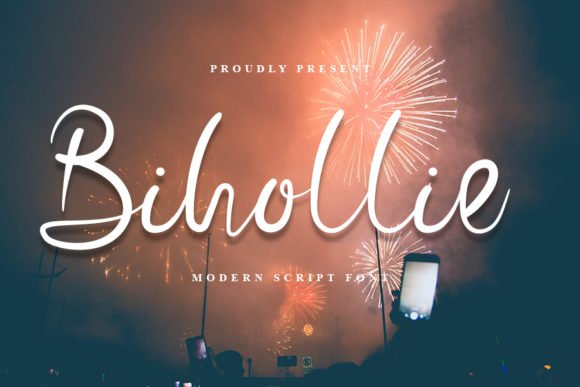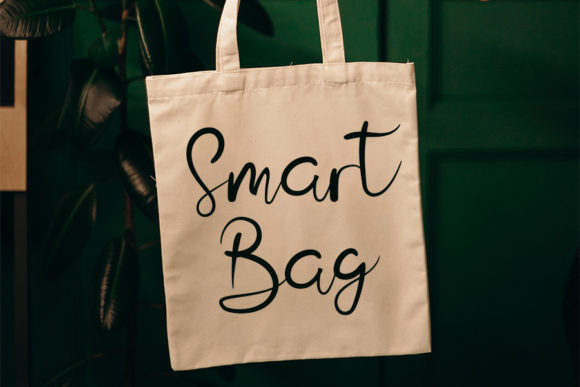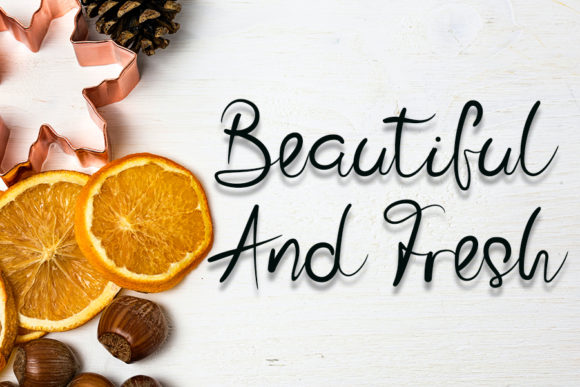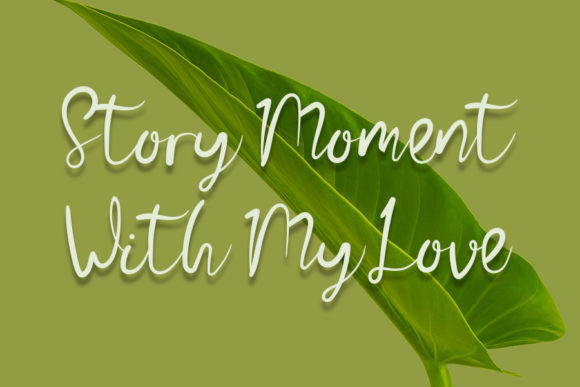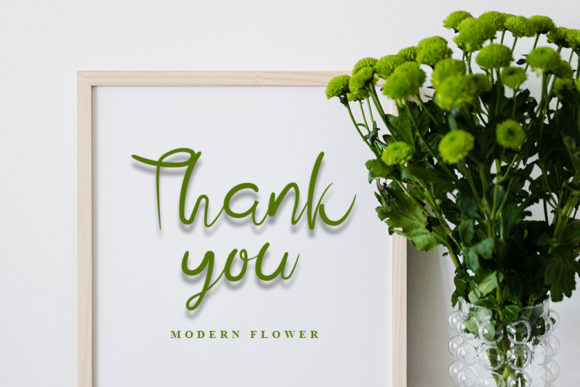
Discover the Magic of Bihollie Font: Elevate Your Holiday Projects
As a creative, there’s nothing quite like the feeling of finding the perfect font to bring your vision to life. You’re browsing through font libraries, scrolling through online marketplaces, and suddenly, a font catches your eye. Its elegant curves and flowing lines transport you to a world of holiday magic. This is exactly what happened to many designers when they stumbled upon the Bihollie Font.
Bihollie Font is a beautiful, rich, and elegant handwritten font that’s perfect for holiday-themed greeting cards, invitations, and any crafting project that requires a romantic touch. Its versatility and timeless charm make it a valuable addition to any designer’s toolkit.
Whether you’re a seasoned pro or a beginner, the Bihollie Font is sure to inspire your creativity and help you create stunning projects that will be treasured for years to come.
- Unique Character: Bihollie Font features a unique blend of modern and vintage elements, creating a distinctive aesthetic.
Bihollie Font Review
Overall, I think the Bihollie font has a lot going for it. ✨ It’s got a unique, handwritten feel that’s perfect for adding some personality to your designs. The font is highly legible, even at smaller sizes, and it’s got a nice flow to it that makes it a joy to read.
One of the things that I think really sets the Bihollie font apart is its versatility. ✨ It’s great for use in body text, but it’s also perfect for headings and titles. The font is highly customizable, so you can tweak it to fit your specific design needs.
- ⚠️ The font can feel a bit too playful at times, which may not be suitable for all types of designs.
- ⚠️ Some users may find the font to be a bit too ornate, which can make it difficult to read in certain situations.
Overall, I think the Bihollie font is a great addition to any designer’s toolkit. While it may have some limitations, its unique feel and high level of customization make it a valuable asset for any project.
Tips for Getting the Most Out of Bihollie Font
For optimal results, use the Bihollie font in conjunction with bold or italic text to create emphasis.
Experiment with different font sizes and colors to achieve a unique visual effect.
The Bihollie font is ideal for:
- Emphasis and highlights
Alternatives to Bihollie Font
Playfair Display is an elegant, high-end serif font ideal for luxury branding, high-end fashion, and sophisticated publications. It features a mix of classic and modern elements, making it a great choice for designers looking to create a unique and sophisticated look.
Comparison to Bihollie Font: While both fonts have an elegant feel, Playfair Display is more refined and luxurious, making it a better choice for high-end brands and publications. Bihollie Font, on the other hand, has a more playful and whimsical feel, making it better suited for creative and artistic projects.
Comparison to Bihollie Font: Didot is more refined and classic compared to Bihollie Font, which is more playful and whimsical. Didot is a better choice for brands and publications that require a level of sophistication and elegance, while Bihollie Font is better suited for creative and artistic projects.